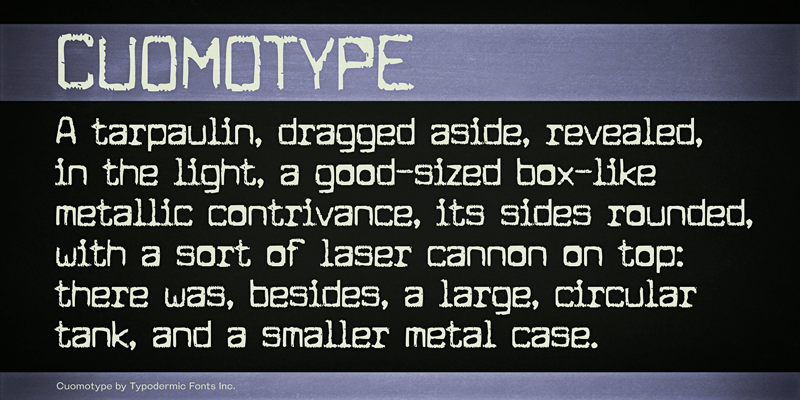
Cuomotype is distressed type based on an early 1970’s typewriter font. This font includes a license that allows free commercial use: sometimes referred to as a desktop license. This allows you to install the font on a computer and use it to create posters, web graphics, game graphics, t-shirts, videos, signs, logos and more. Read the license agreement for details. If you'd like to embed this font in an app, ebook, on the web or anything that's not covered by the desktop license agreement, visit the link below. You'll find distributors who offer different types of licenses or you can contact me for help. http://typodermicfonts.com/cuomotype/ |